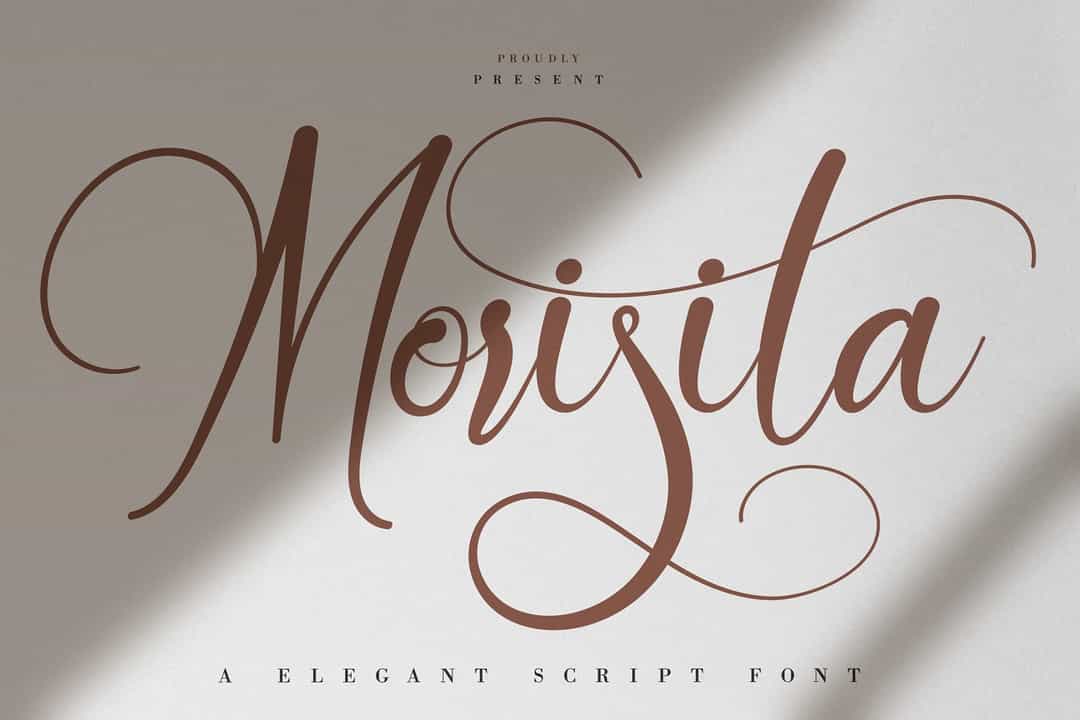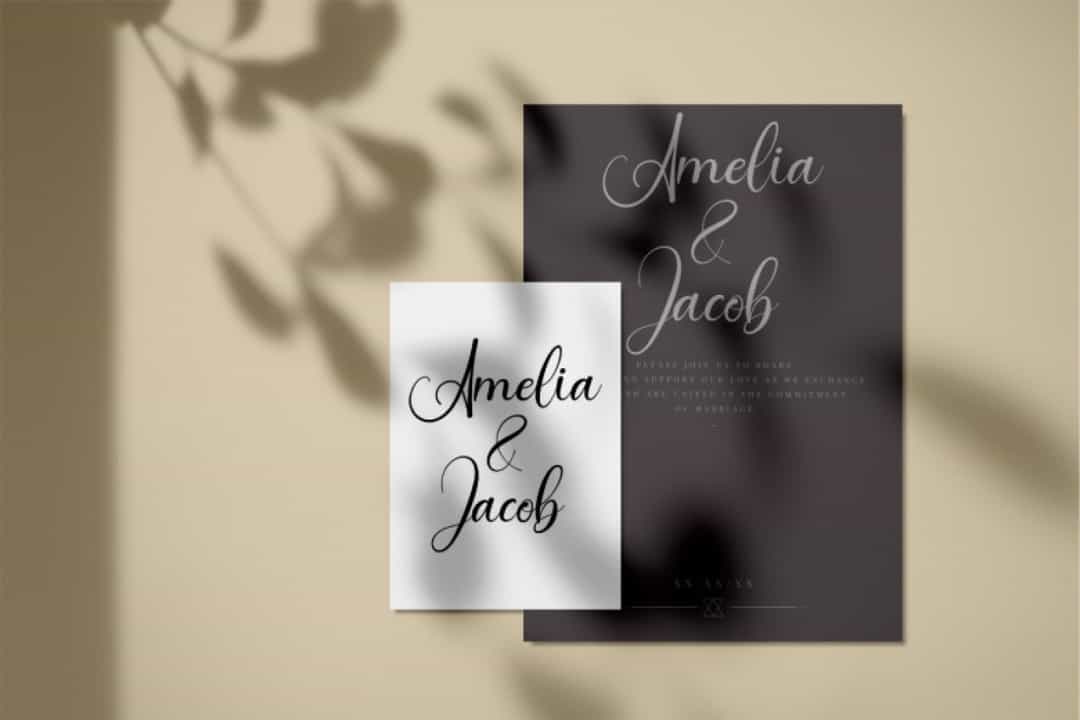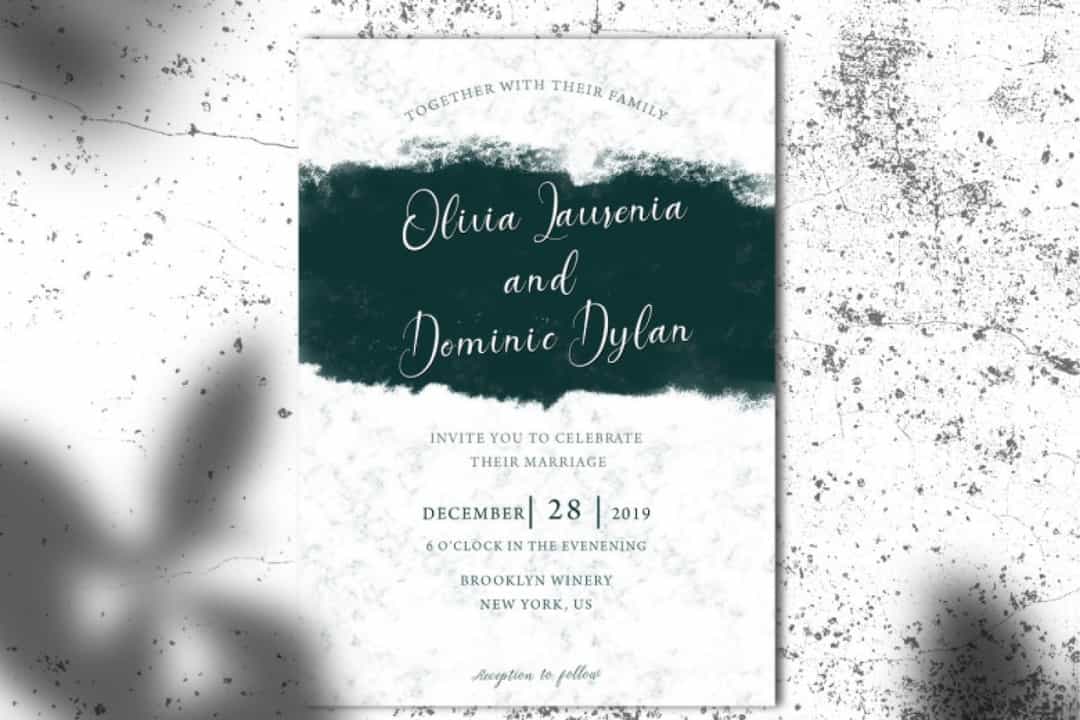
Morisita Font, which has the handwriting script style can be applied in logo and branding, invitations, stationery, weddings and social media. It is also applicable to product packaging posters, product designs or labels, watermarks, photography, occasions that are associated with fashion quotes among others.